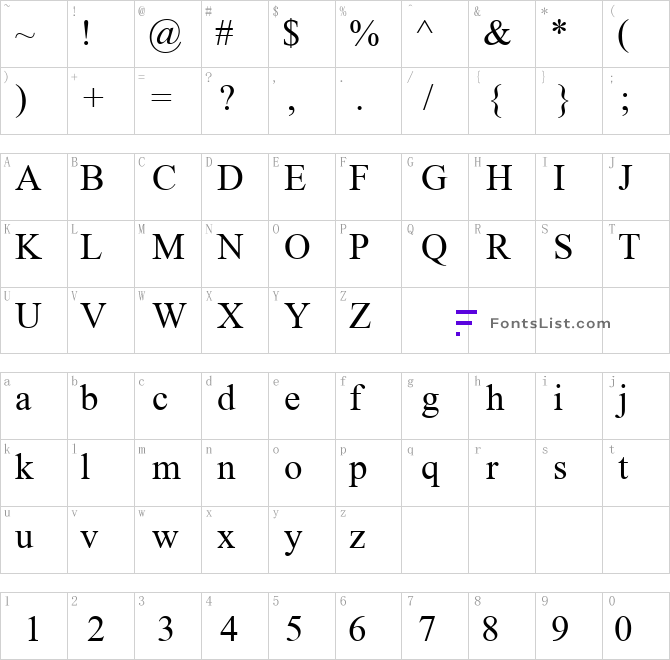
- Font Name:Basemic Times
Basemic-Times.ttf is a very beautiful artistic font, Basemic-Times.ttf is widely used in the design and printing of various books and pictures,Basemic-Times.ttf has a strong visual impact,Basemic-Times.ttf is a commonly used font in newspapers, magazines and books, and is used in posters, e-commerce Poster design, store design, logo design, font design and other fields.Basemic-Times.